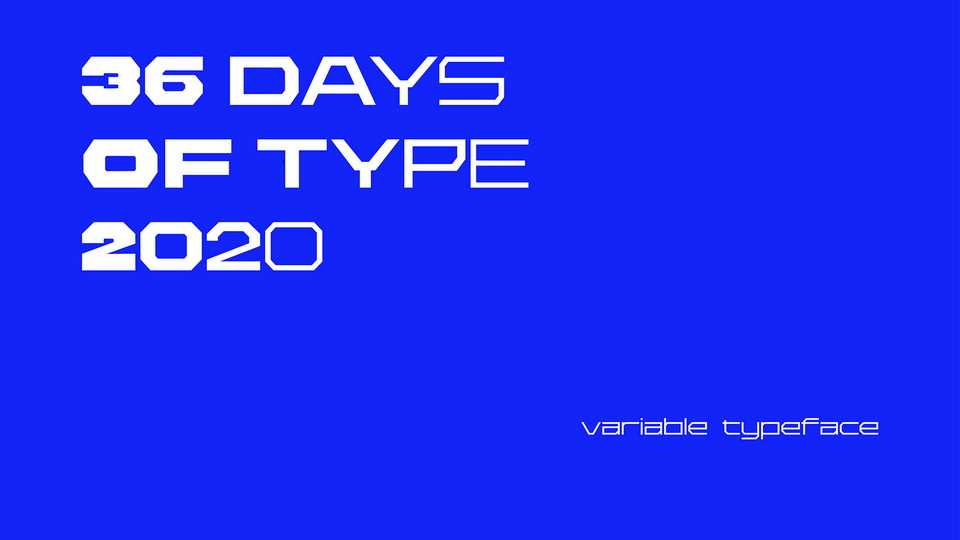
Download 36 Days type, a variable font with 2 sets of accented chopped grotesque of Latin letters and numbers. 36 Days includes weight axis from Light to Bold and shape – from uppercase to lowercase.
Designer: Sergey Shapovalov